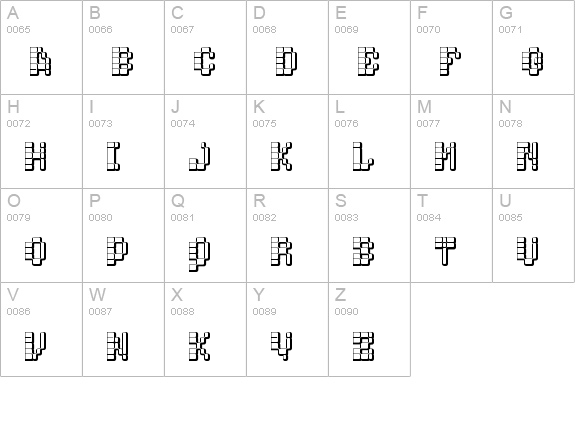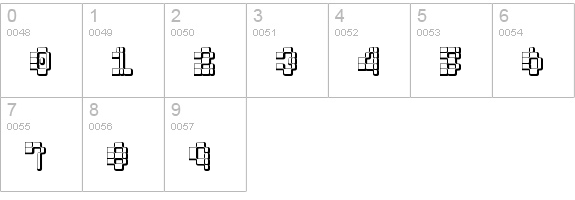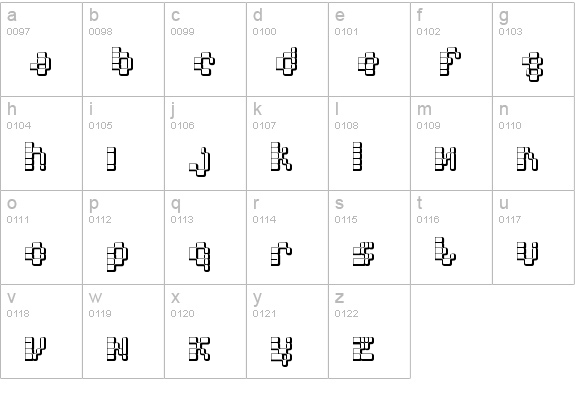
HypercellDNA Font Details
HypercellDNA font is a modern, futuristic typeface that exudes energy and creativity. With its sleek, geometric design and unique styling, this font is perfect for projects that require a cutting-edge look. The sharp angles and clean lines of HypercellDNA give it a dynamic and tech-savvy feel, making it ideal for branding, digital designs, and more. This versatile font is available in a variety of weights and styles, allowing you to customize your text to suit your needs. Whether you're looking for a bold headline font or a sleek, minimalist typeface, HypercellDNA has you covered. Best of all, HypercellDNA is completely free to download at FontsMarket.com. This means you can start using this striking font in your projects right away, without breaking the bank. Don't miss out on the opportunity to add a touch of modern sophistication to your designs with HypercellDNA font - download it today and take your typography to the next level.